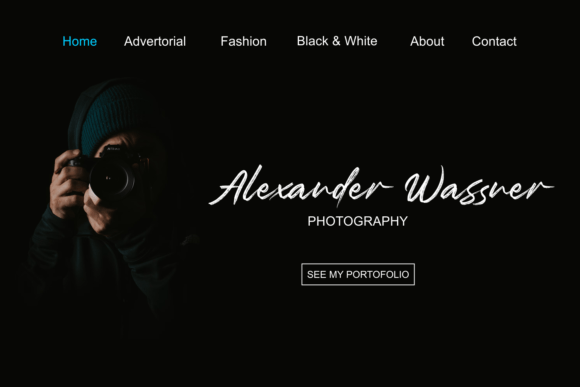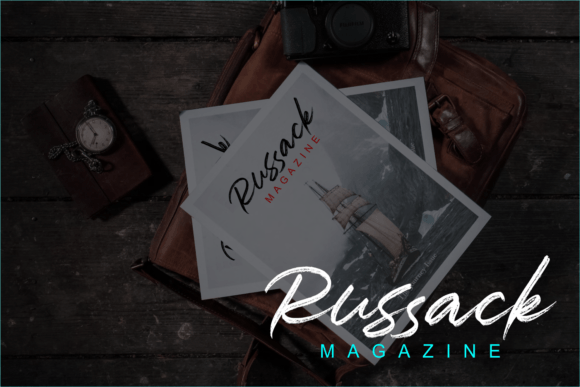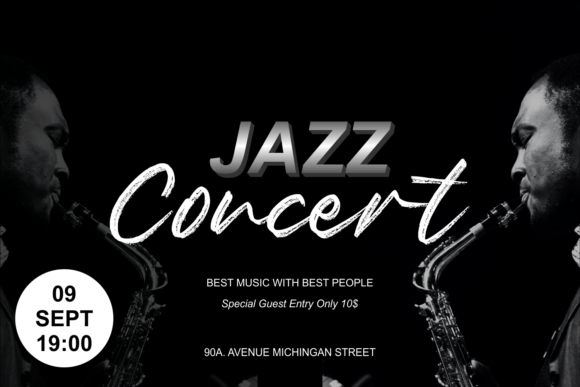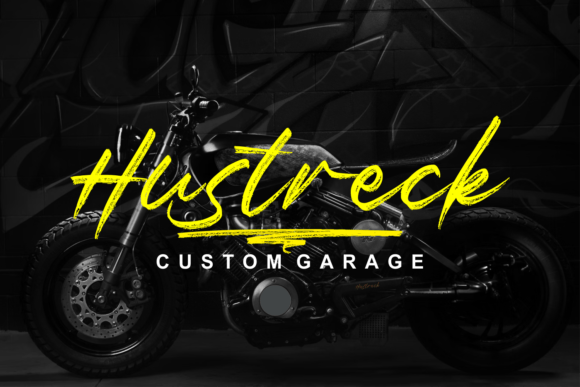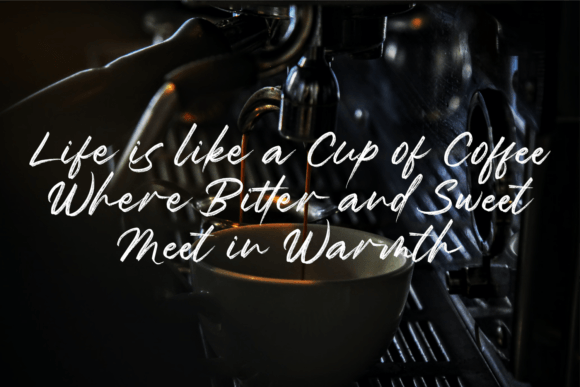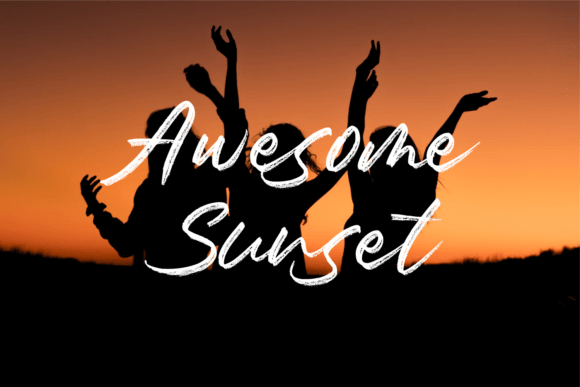
The Perfect Font for Your Next Creative Project
Remember that moment when you stumbled upon the perfect font for your design project? The one that made everything fall into place, and you couldn’t wait to get started? For many designers, that moment is exactly what they’re looking for in a font.
That’s where Cloughness Font comes in – a modern and stylish brush script font designed to bring a touch of elegance and sophistication to your projects. Whether you’re working on a branding project, creating a social media campaign, or designing a website, Cloughness Font is the perfect addition to your toolkit. Its unique and timeless style makes it a valuable asset for designers who want to create truly spectacular designs.
With Cloughness Font, you’ll be able to bring your creative vision to life in a way that’s both beautiful and effective. So why settle for a generic font when you can make a statement with Cloughness Font?
Key Features of Cloughness Font
- Font Family: Cloughness Font is a unique, hand-drawn typeface designed for various applications.
- Unique Characteristics: Cloughness Font features a distinctive, hand-drawn feel with subtle imperfections, giving it a human touch and a unique aesthetic.
Designer Review: Cloughness Font
Overall, I found the Cloughness Font to be a unique and interesting addition to the world of typography. There are certainly some things that stand out about this font, ✨
- Its bold, expressive lines and curves give it a dynamic, energetic feel that’s perfect for headings and titles.
- The font’s irregularities and imperfections add a touch of character and personality that can make it stand out in a crowded design landscape.
- It’s also surprisingly versatile, working well in both digital and print applications.
However, there are also some limitations to consider ⚠️
- The font’s irregularities can sometimes make it difficult to read, particularly in smaller sizes or at a distance.
- It may not be the best choice for body text, as its bold lines and curves can be overwhelming.
- Additionally, the font’s unique style may not appeal to everyone, and some users may find it too flashy or attention-seeking.
Overall, I think the Cloughness Font is a great choice for designers who want to add some personality and flair to their work. However, it’s not a one-size-fits-all solution, and designers should carefully consider their project’s needs and audience before choosing this font.
Cloughness Font Practical Application Guide
Tips for Getting the Most Out of Cloughness Font
To get the most out of Cloughness Font, use it for titles and headings to add a touch of elegance and sophistication to your designs. You can also use it for body text to create a unique and eye-catching look. Experiment with different font sizes and styles to find the perfect balance for your design.
Cloughness Font is ideal for creative projects such as logo design, branding, and packaging. It’s also great for academic and professional projects that require a touch of sophistication and elegance.
Alternatives to Cloughness Font
Playfair Display is a luxurious, high-end serif font perfect for creating a sense of elegance and sophistication. It’s ideal for use in titles, headings, and other prominent text elements where a touch of luxury is desired.
Compared to Cloughness Font, Playfair Display has a more refined and classic look, with intricate details and flourishes. While Cloughness Font has a more rustic, vintage feel, Playfair Display is better suited for modern, high-end designs.